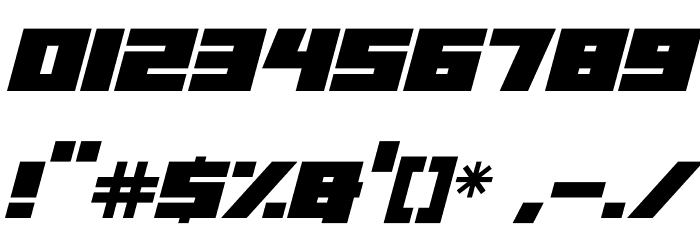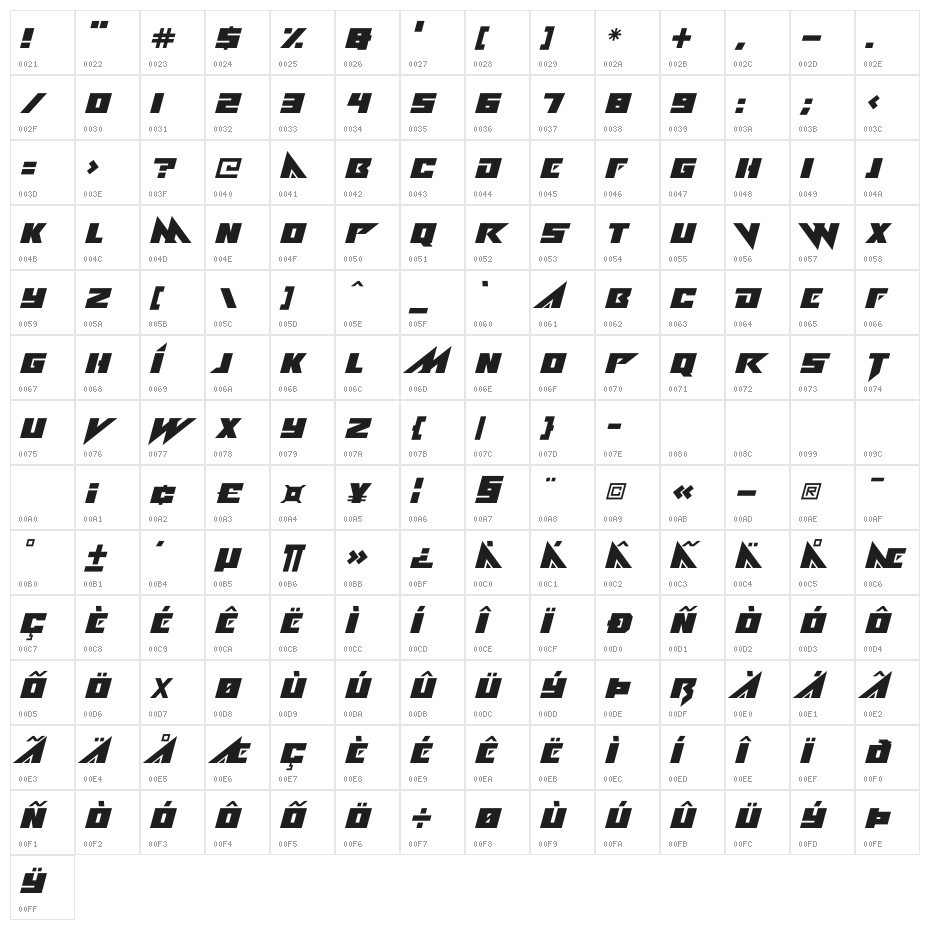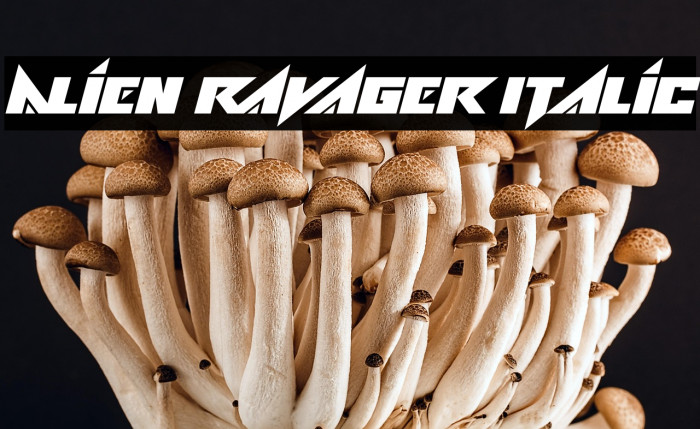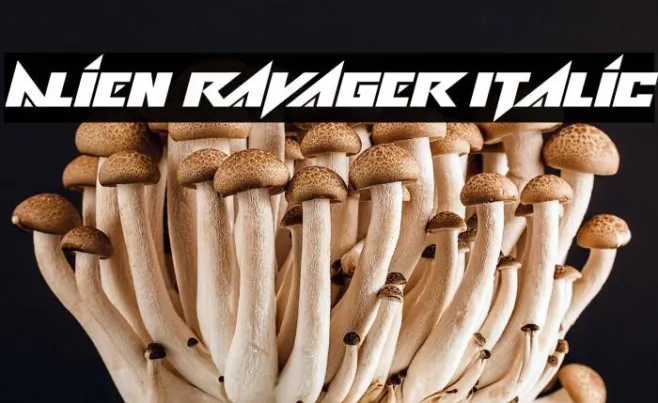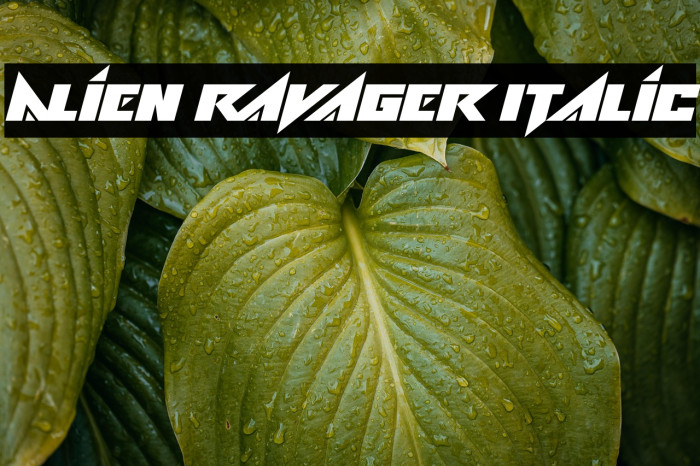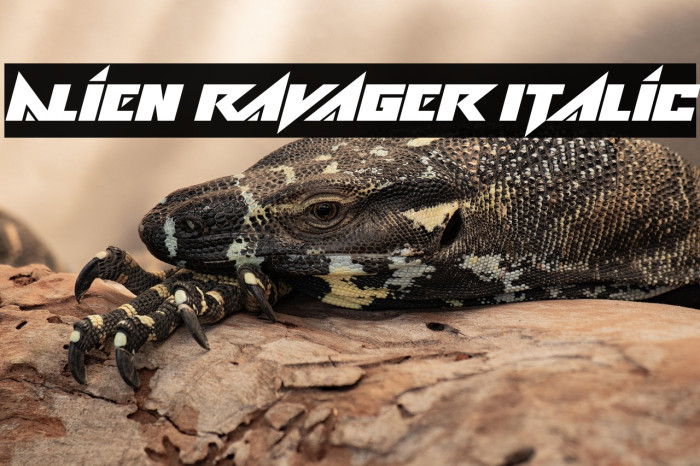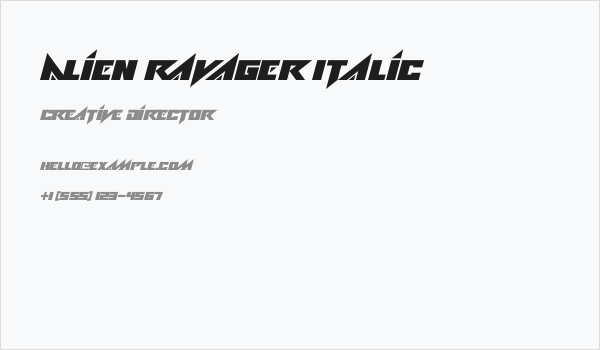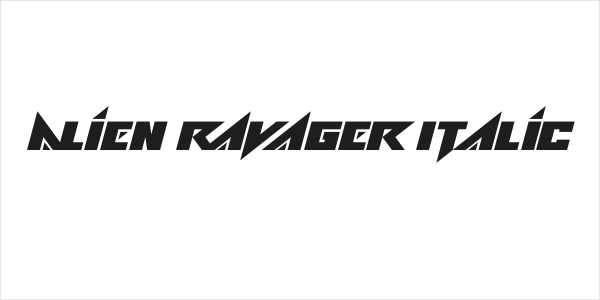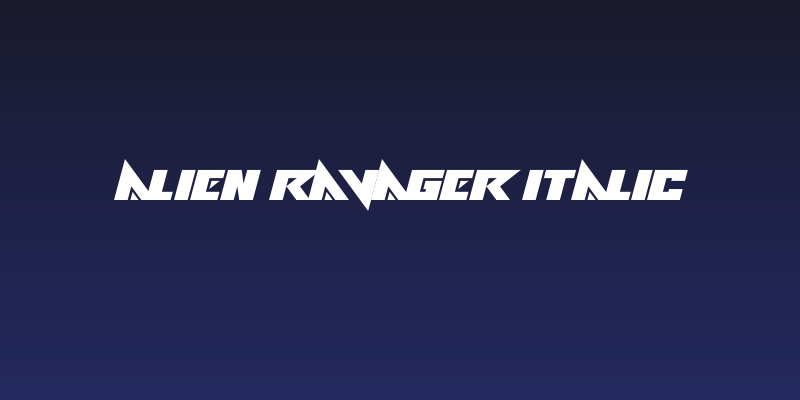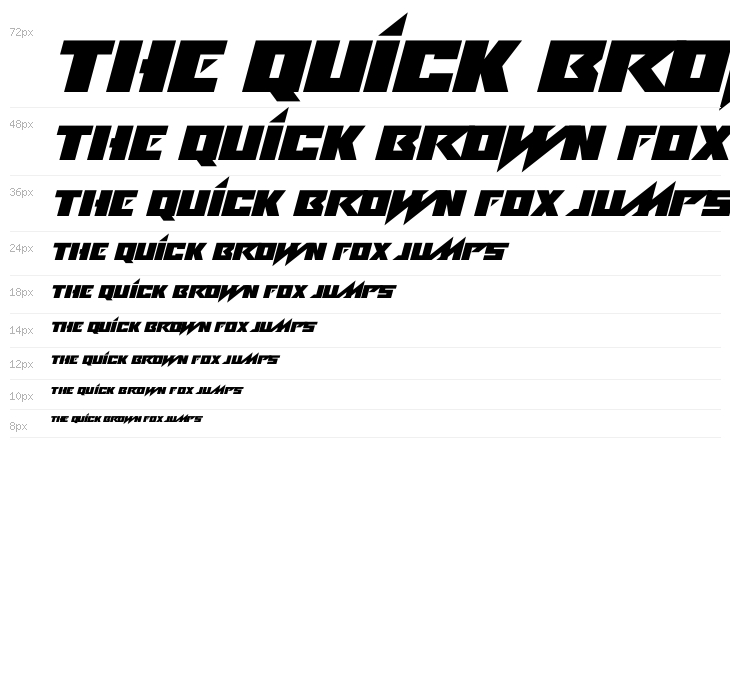
Alien Ravager Italic Font
Alien Ravager Italic Description
This font exhibits a bold, futuristic design with sharp angles and a dynamic, italicized slant. The characters are heavily stylized, featuring geometric shapes and aggressive lines that convey a sense of speed and modernity. The uppercase and lowercase letters maintain a consistent style, with the lowercase slightly smaller but equally impactful. Numbers and special characters follow the same design principles, ensuring uniformity across all glyphs. The font's unique appearance makes it ideal for projects that require a strong, eye-catching aesthetic.
| Proposed Projects | Ideal for sci-fi themed projects, video game titles, movie posters, and branding that requires a modern, edgy look. |